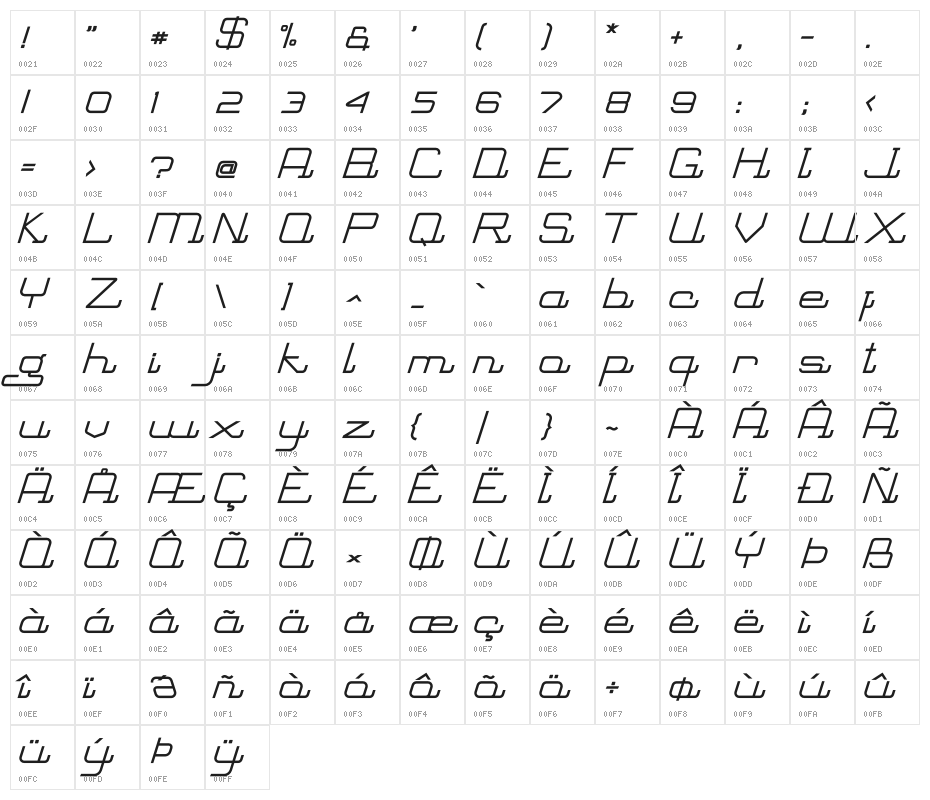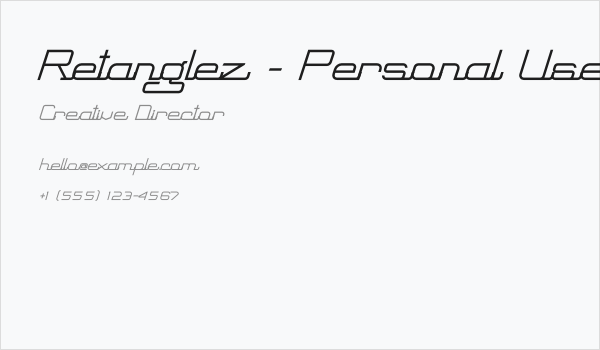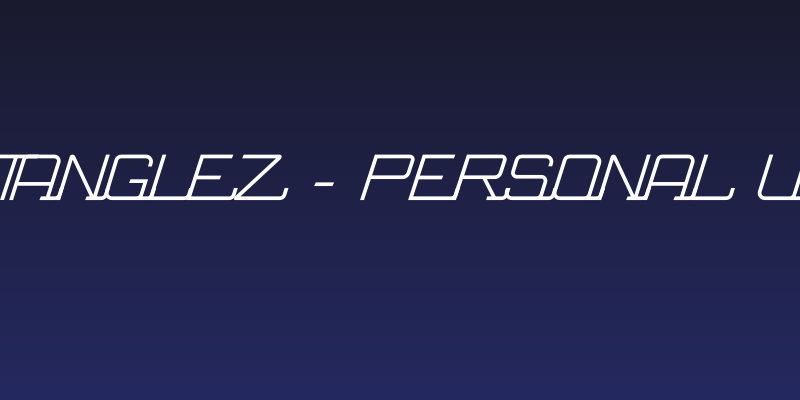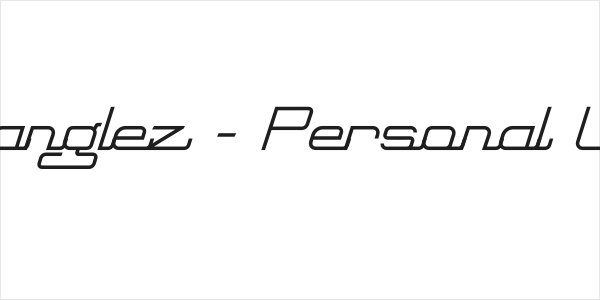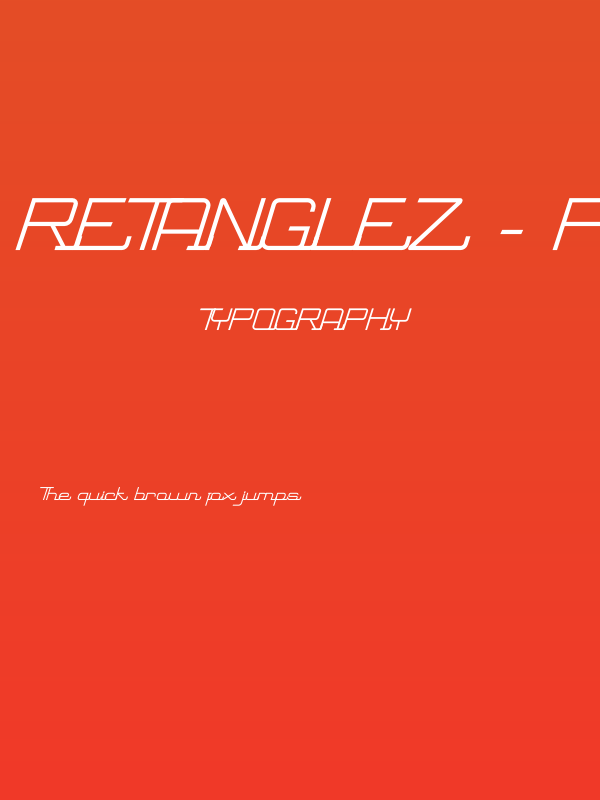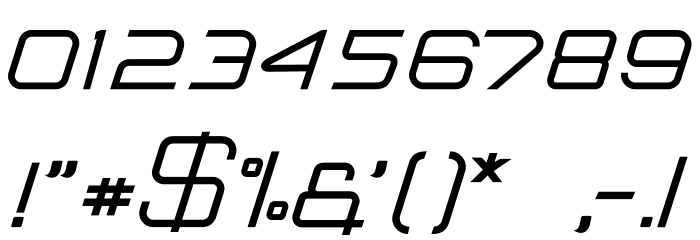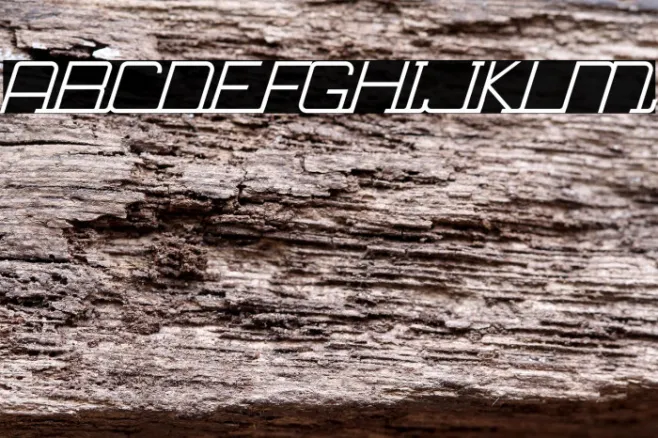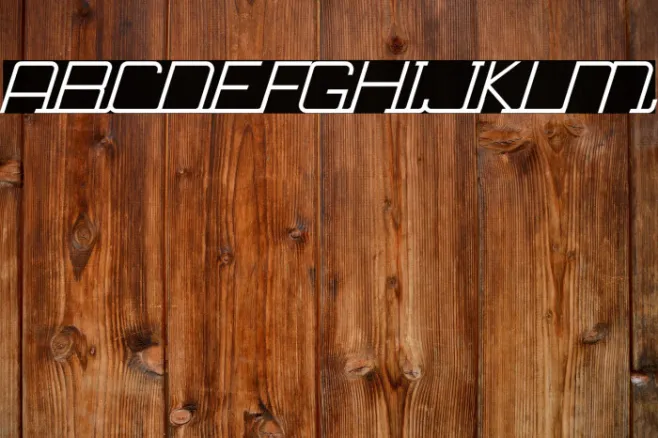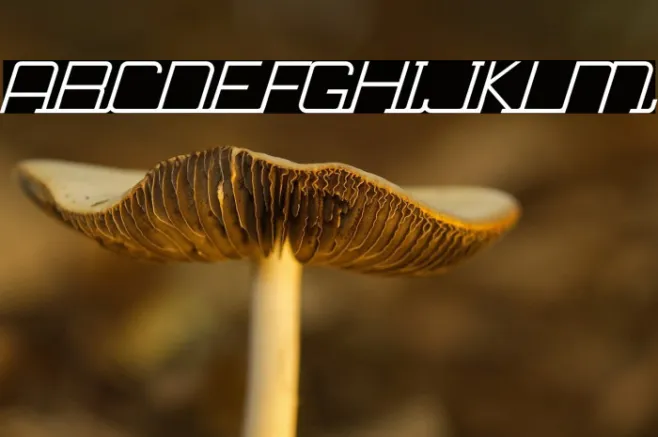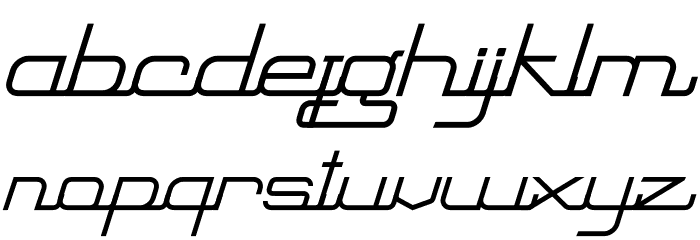
Retanglez - Personal Use Font
Retanglez - Personal Use Description
This font features a modern, geometric design with a distinct angular style. The characters are constructed with clean, straight lines and sharp corners, giving it a futuristic and technical appearance. The uppercase and lowercase letters maintain a consistent height, while the numerals and special characters complement the overall aesthetic. The font's structure is open and airy, with a slight slant that adds a dynamic feel. The uniform stroke width contributes to its sleek and minimalist look, making it suitable for contemporary design projects.
| Overall Style | Modern, Futuristic |
| Use Case | Headlines, Logos, Digital Interfaces |
| Proposed Projects | Ideal for technology branding, digital interfaces, modern posters, and sci-fi themed designs. |